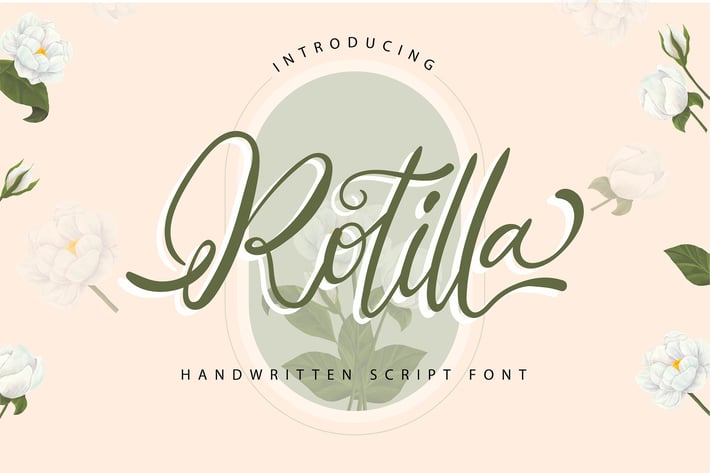
Rotilla | Handwritten Script Font
Rotilla | Handwritten Script Font with a calligraphy style, So beautiful on invitation like greeting cards, branding materials, business cards, quotes, posters, and more!